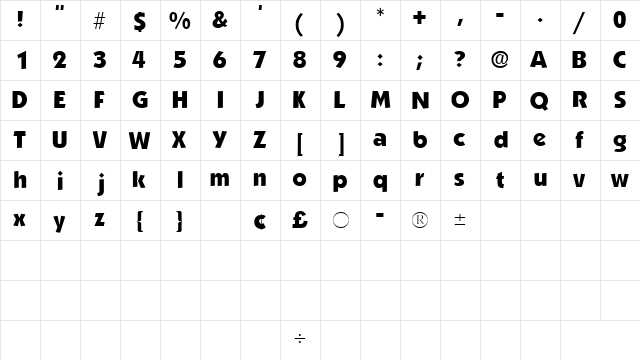
AnakeimSSK Regular
Design Context for AnakeimSSK Typeface
AnakeimSSK offers clean, dependable letterforms without strong stylistic allegiance, making it a practical choice for designers who need flexibility.